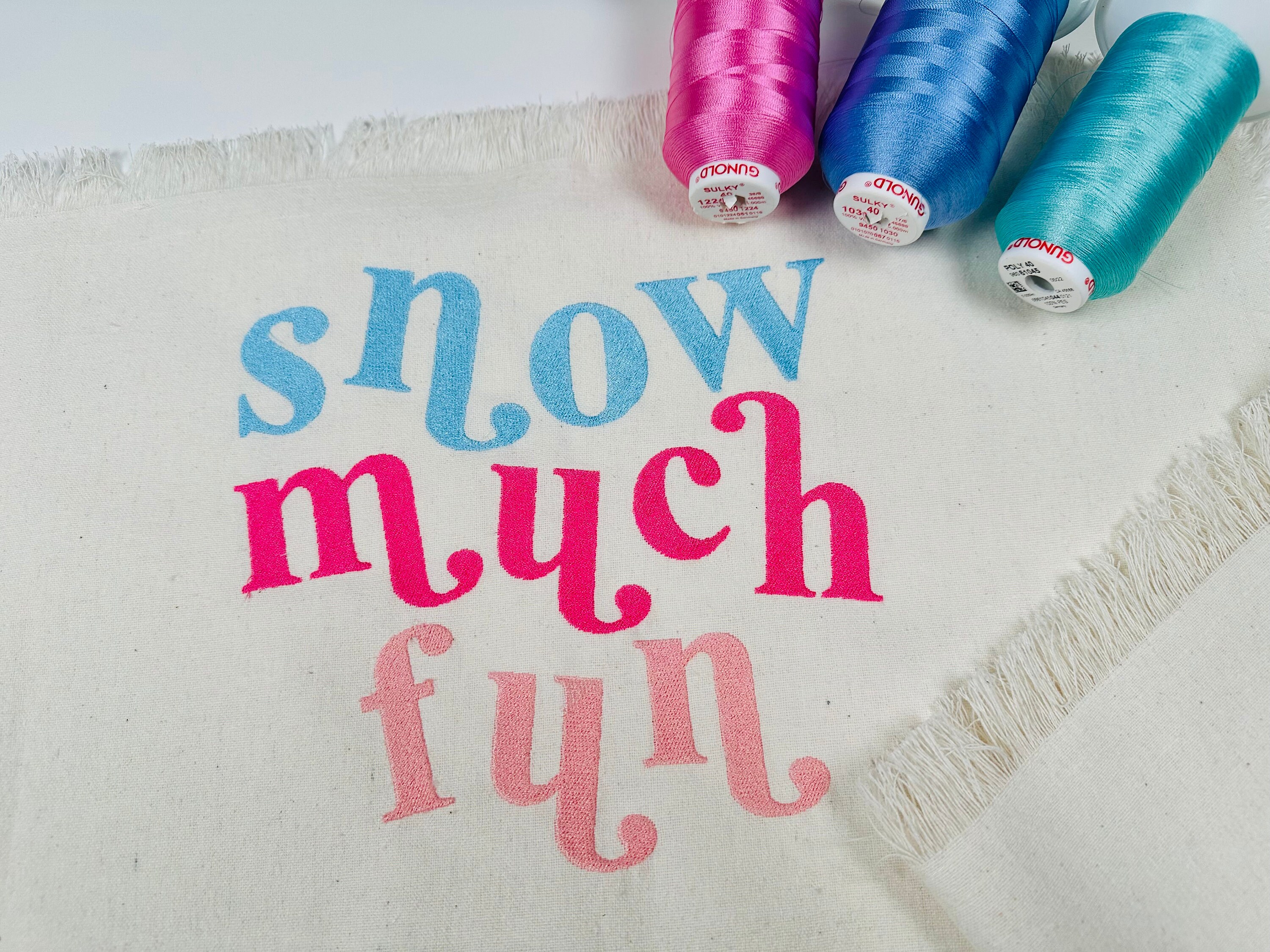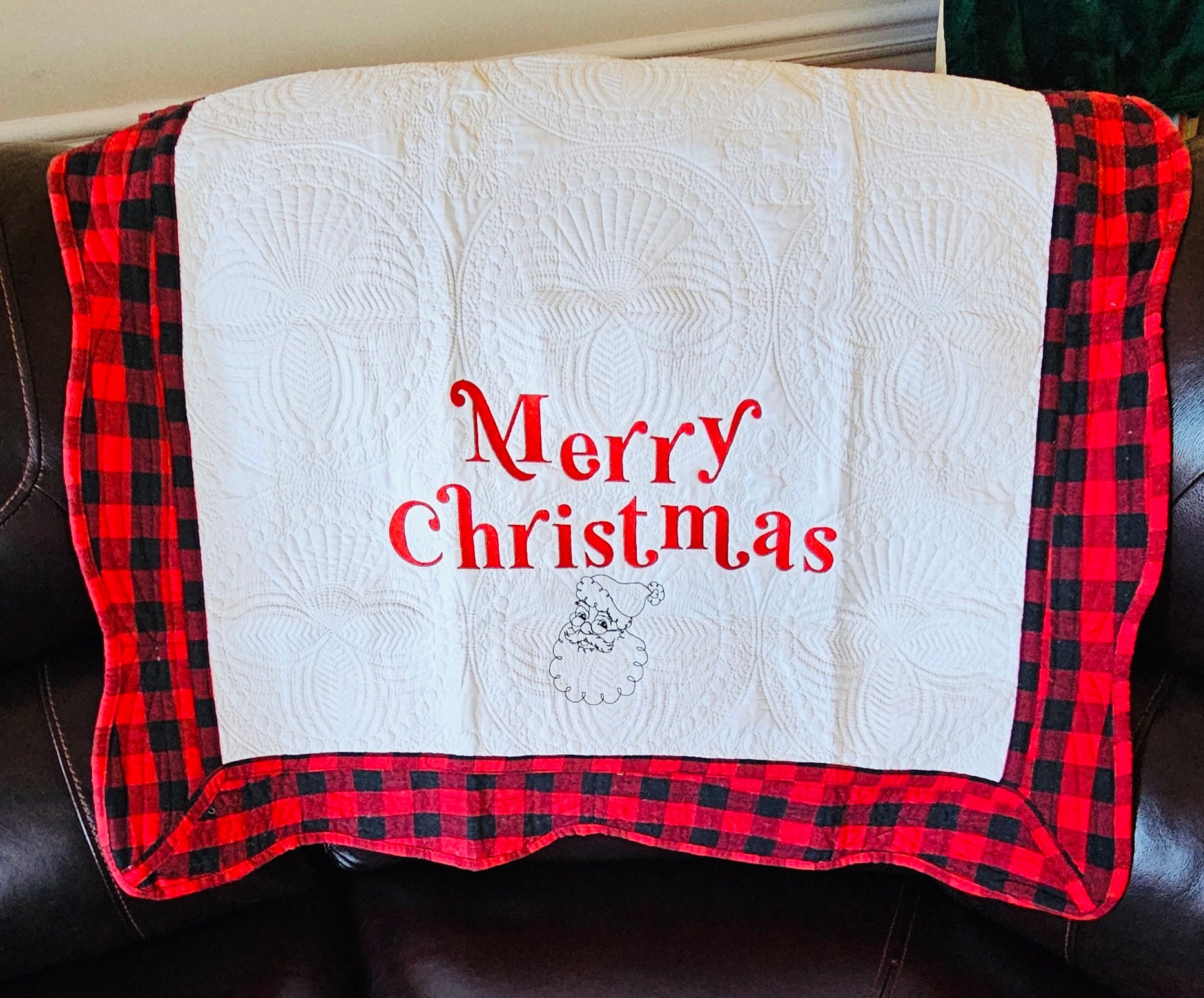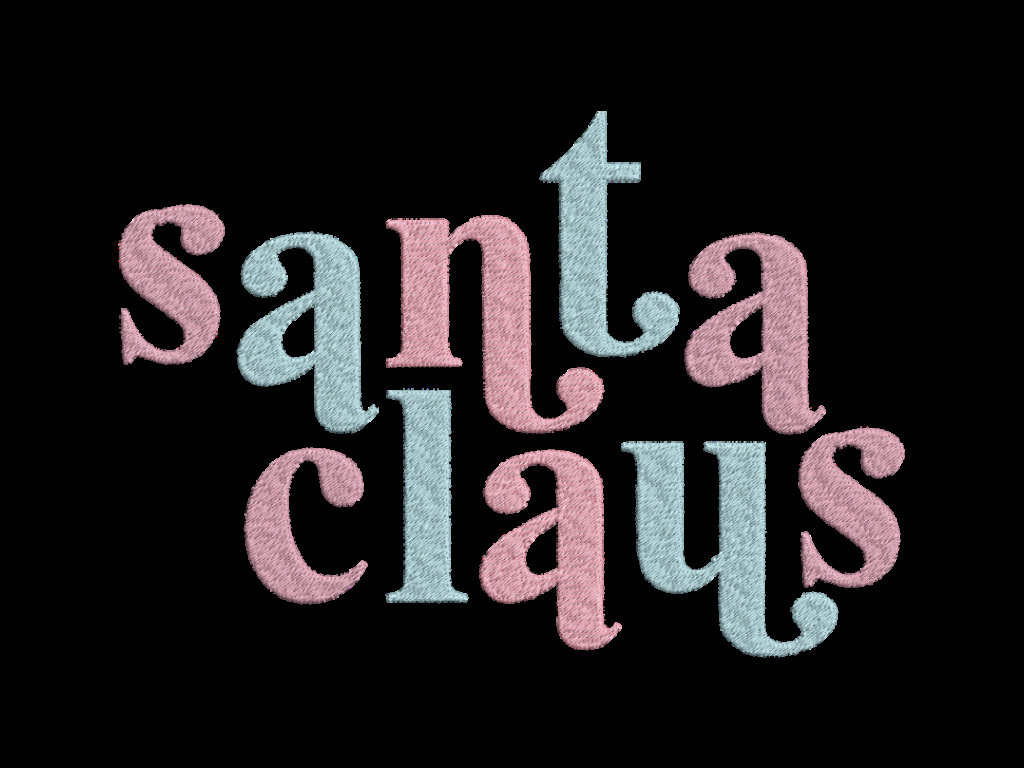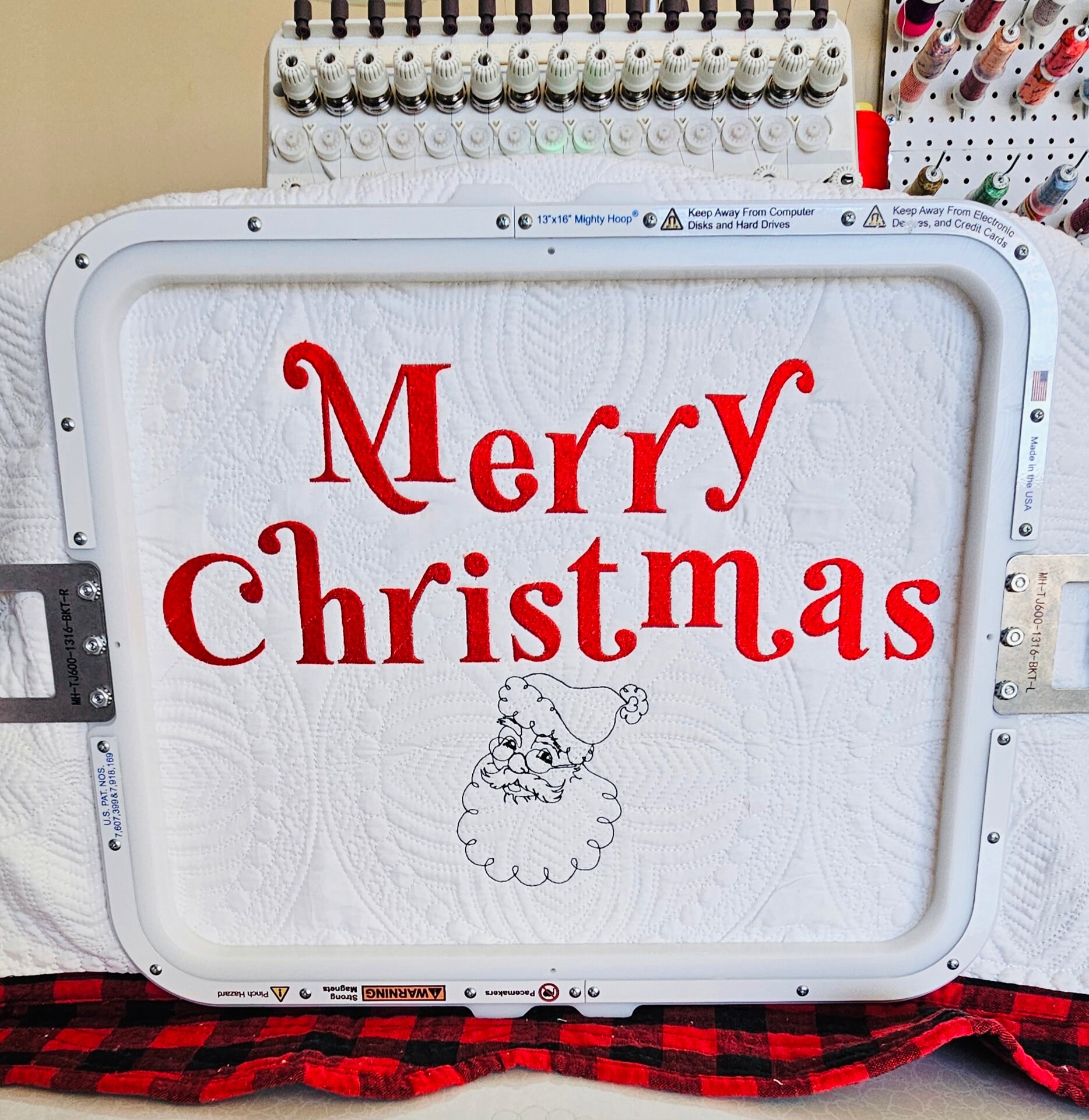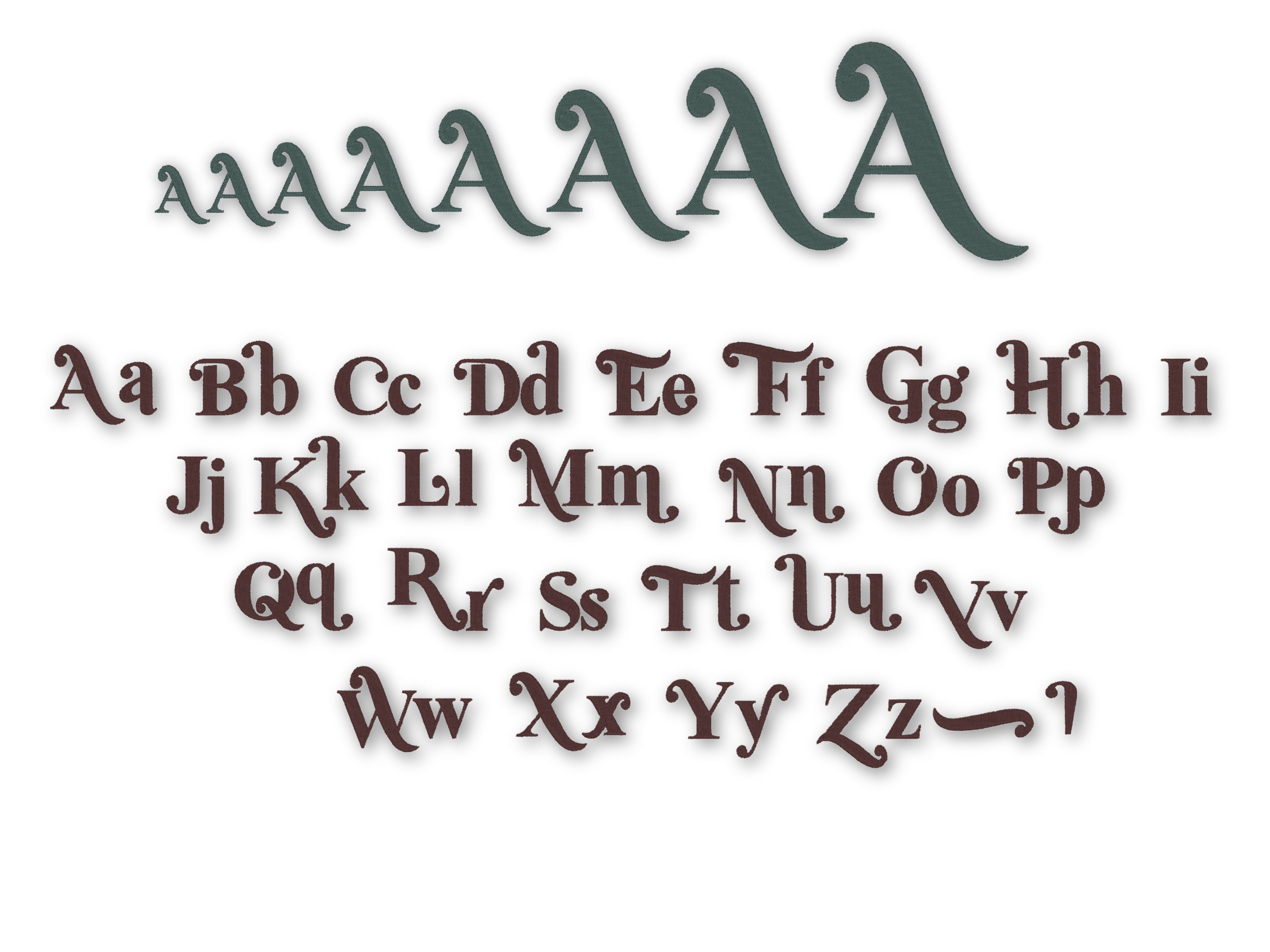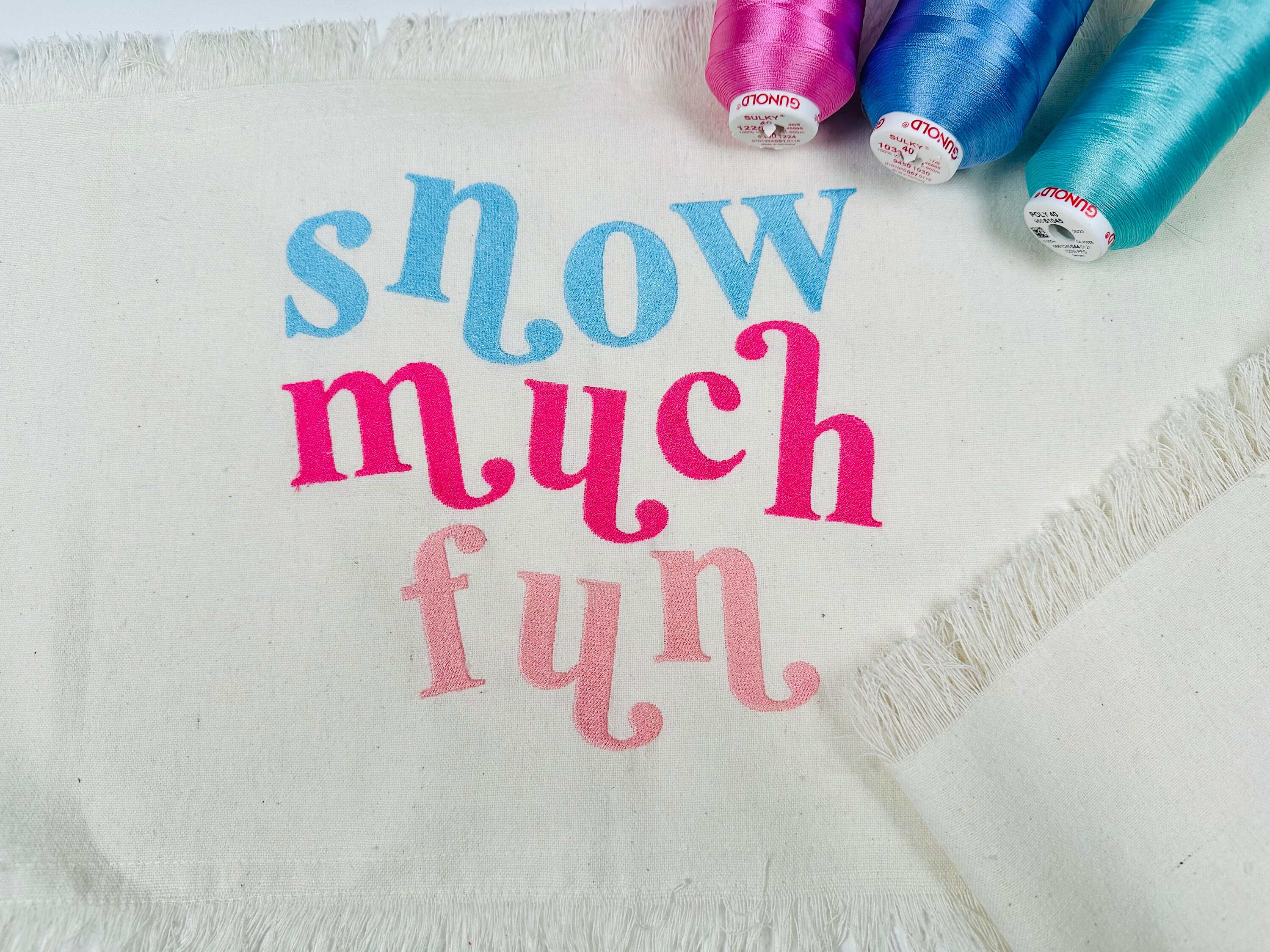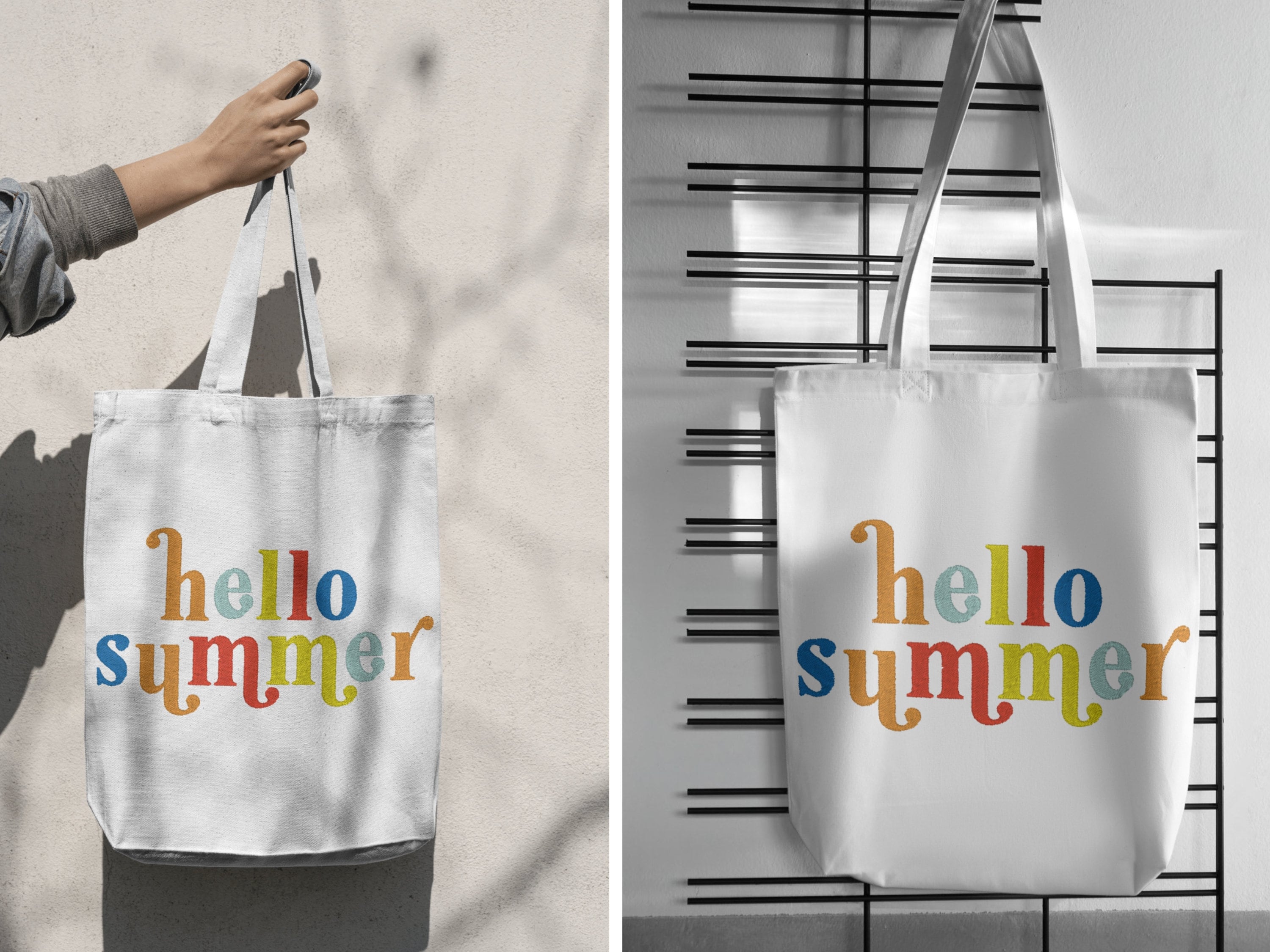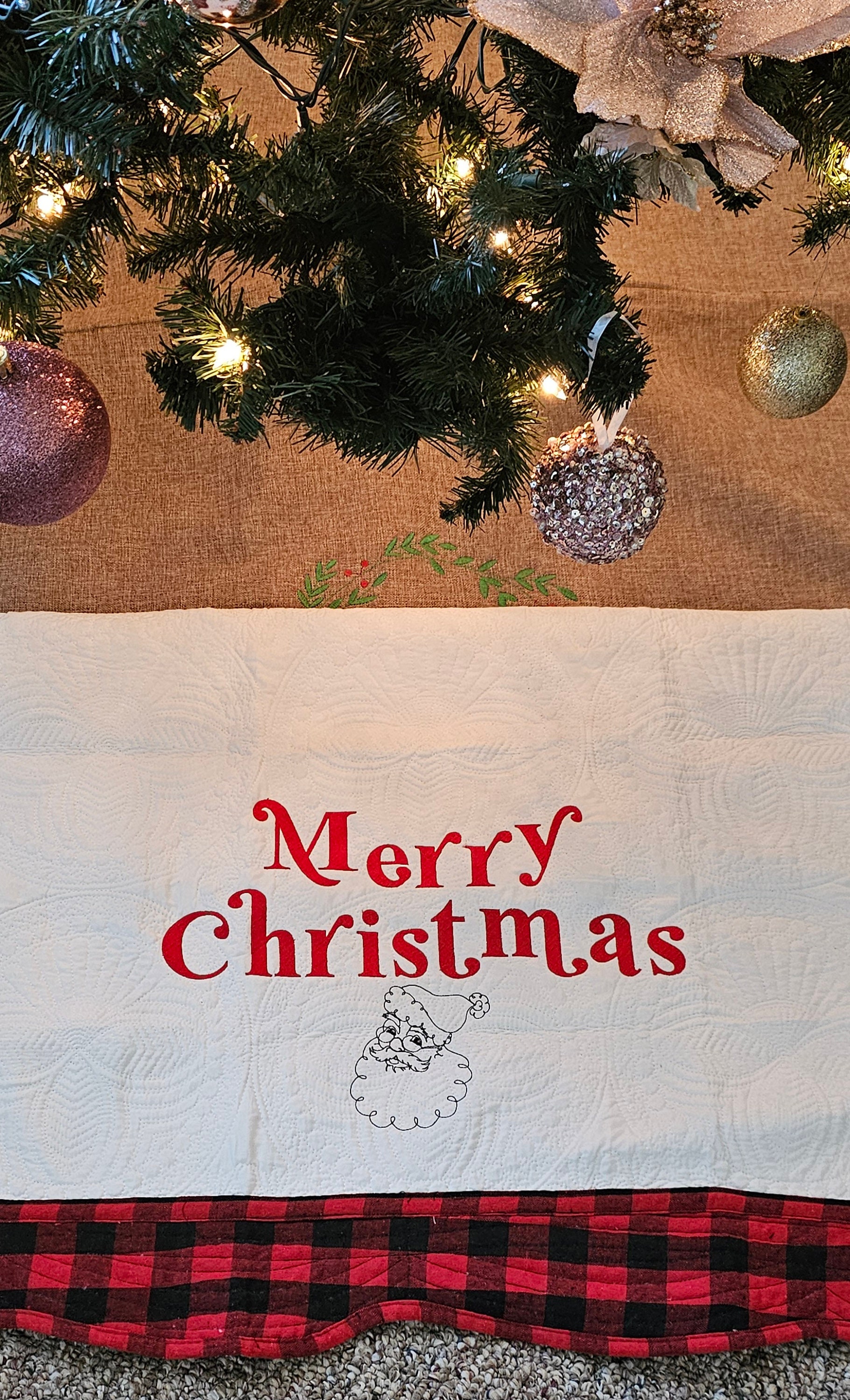
Vintage Font retro machine embroidery designs holly jolly retro alphabet monogram from 1 inch 3.5 inches fill stitch Font BX block trendy
Whole alphabet uppercase and lowercase letters Aa-Zz